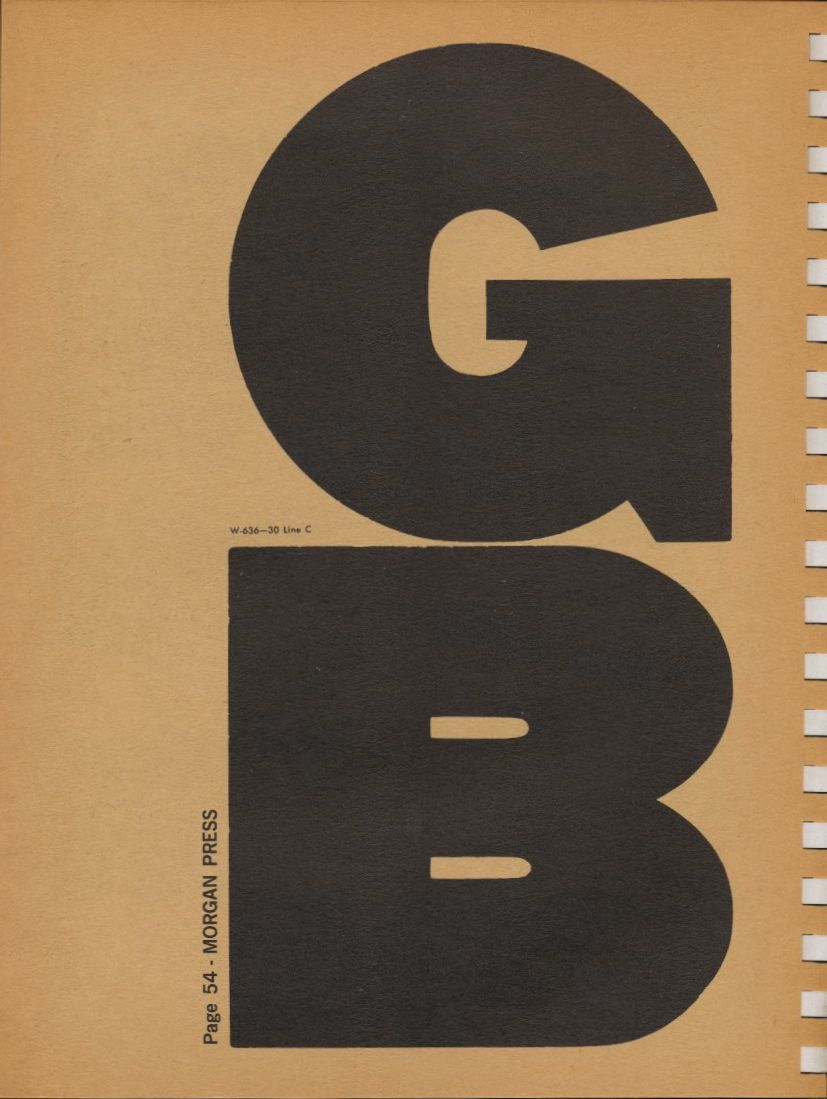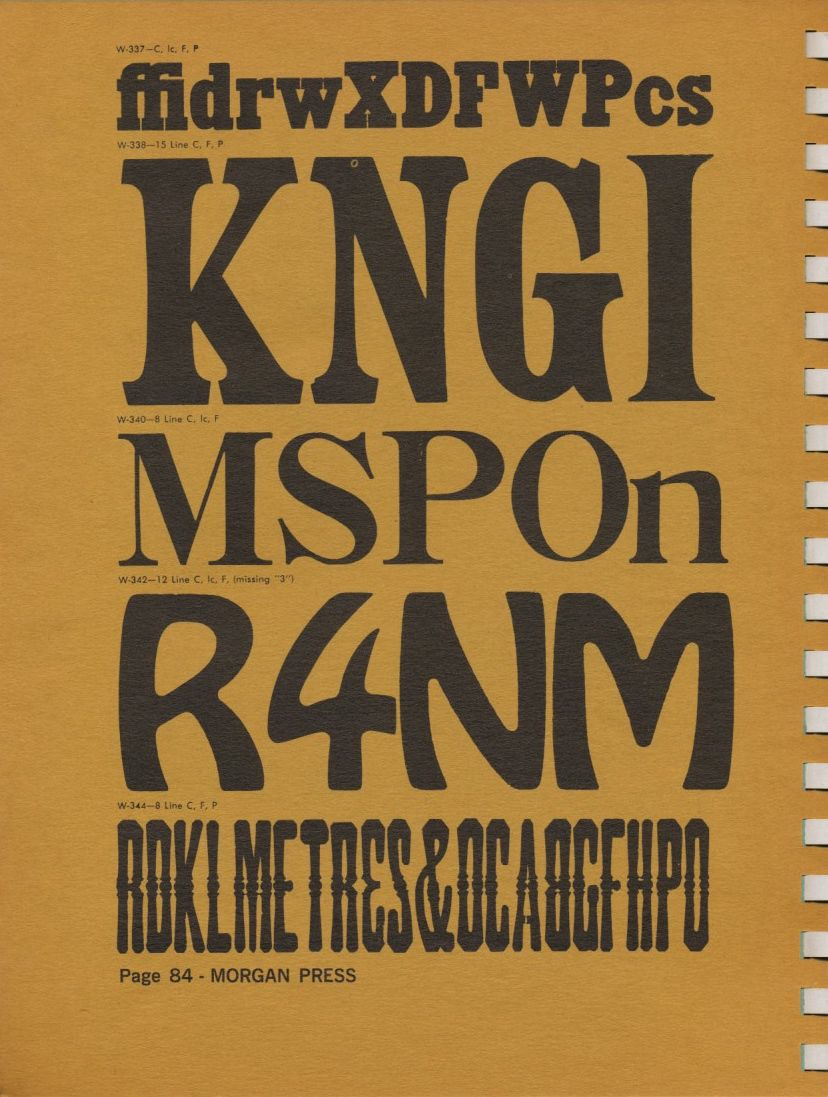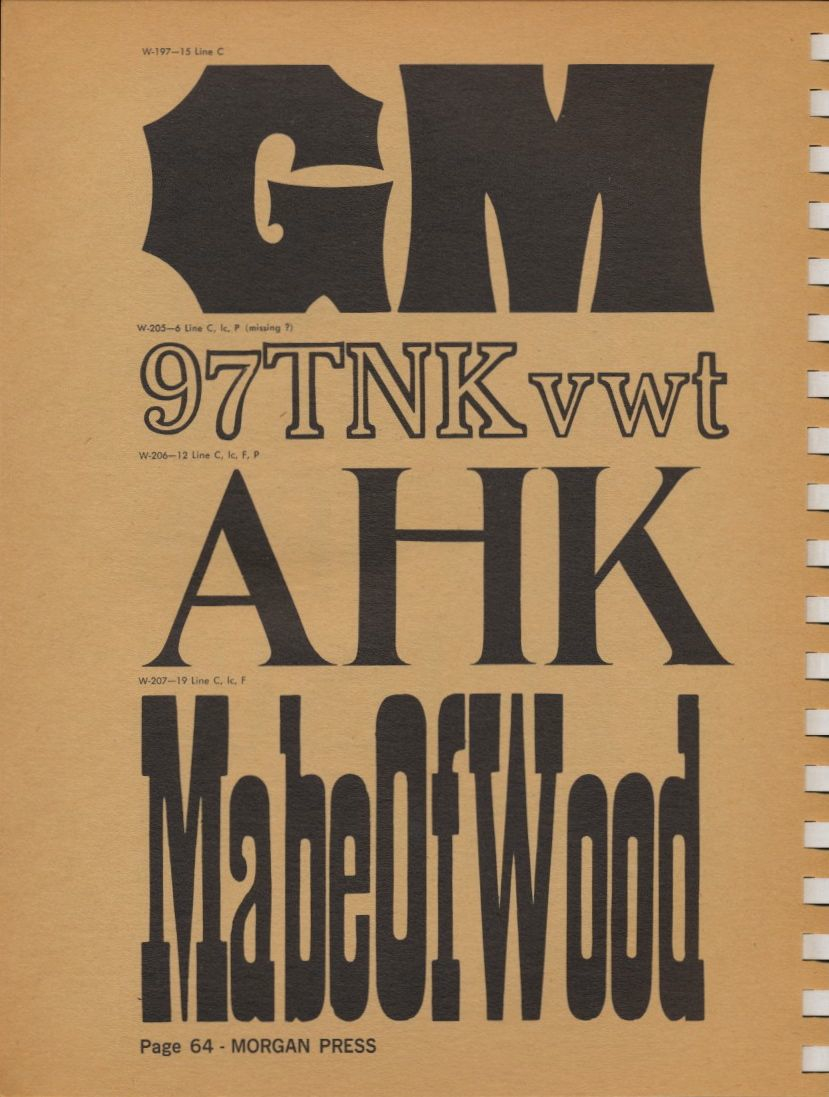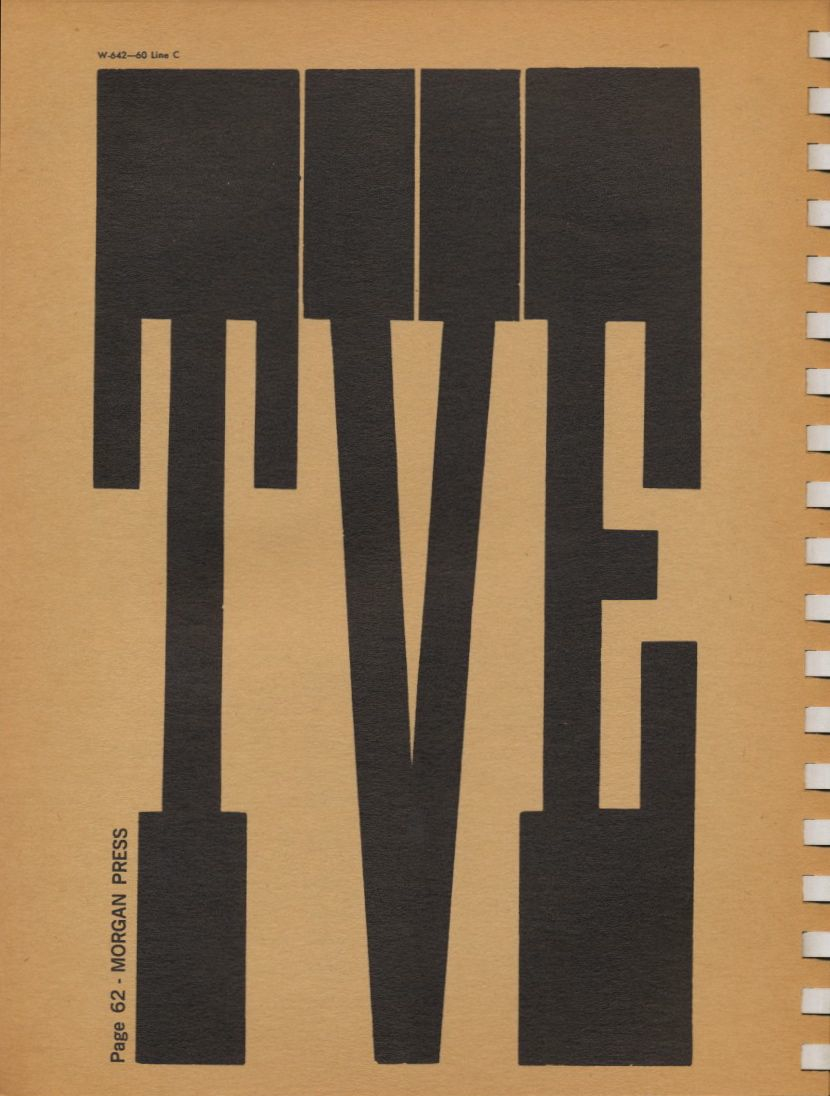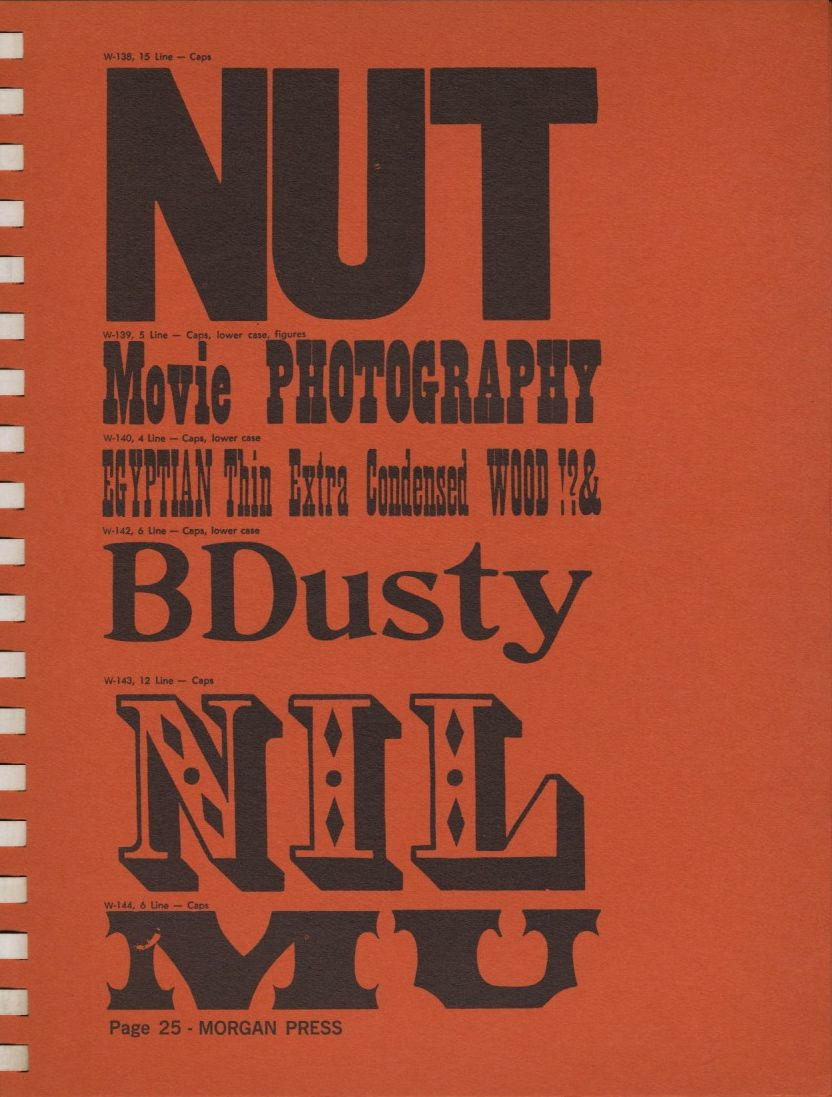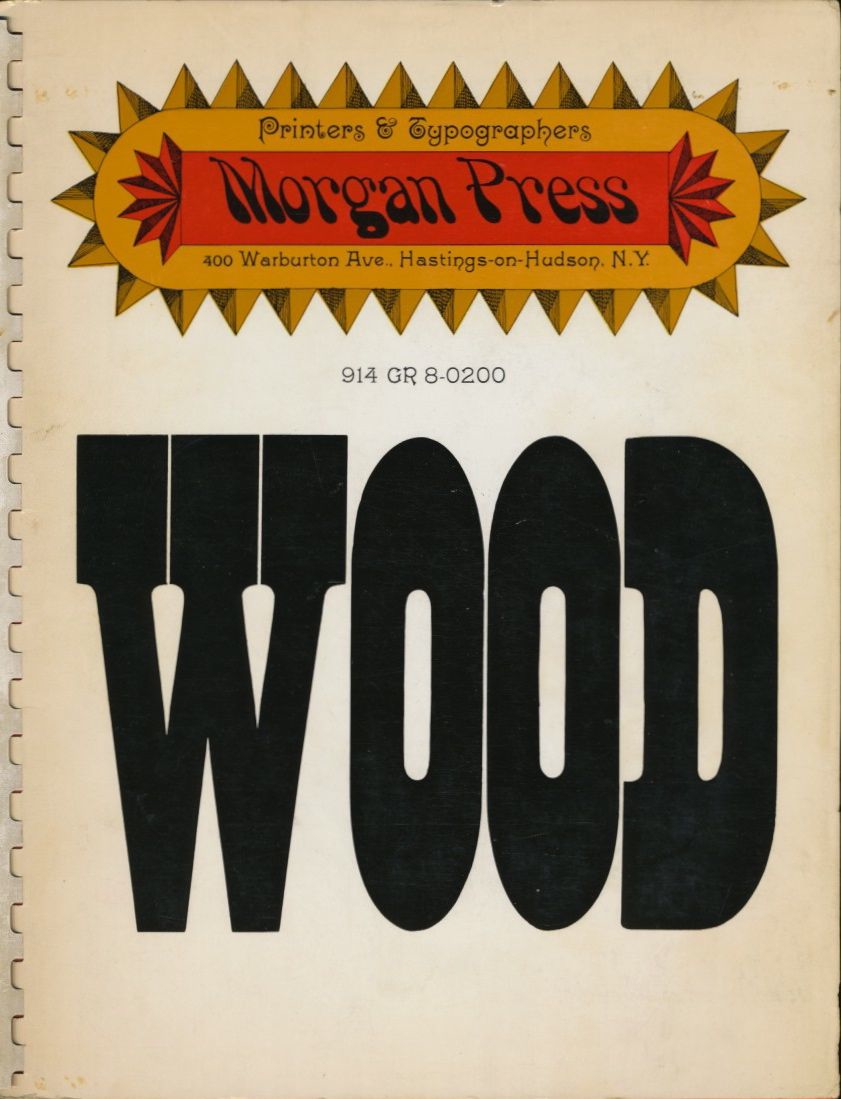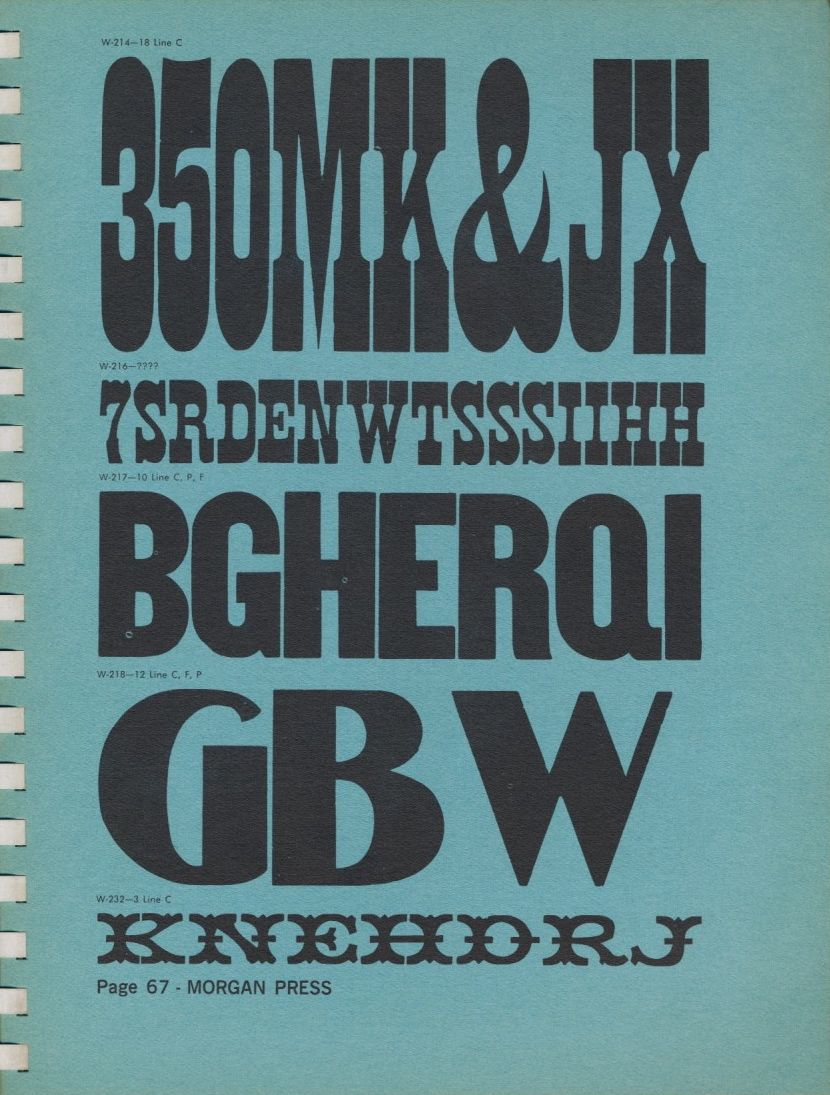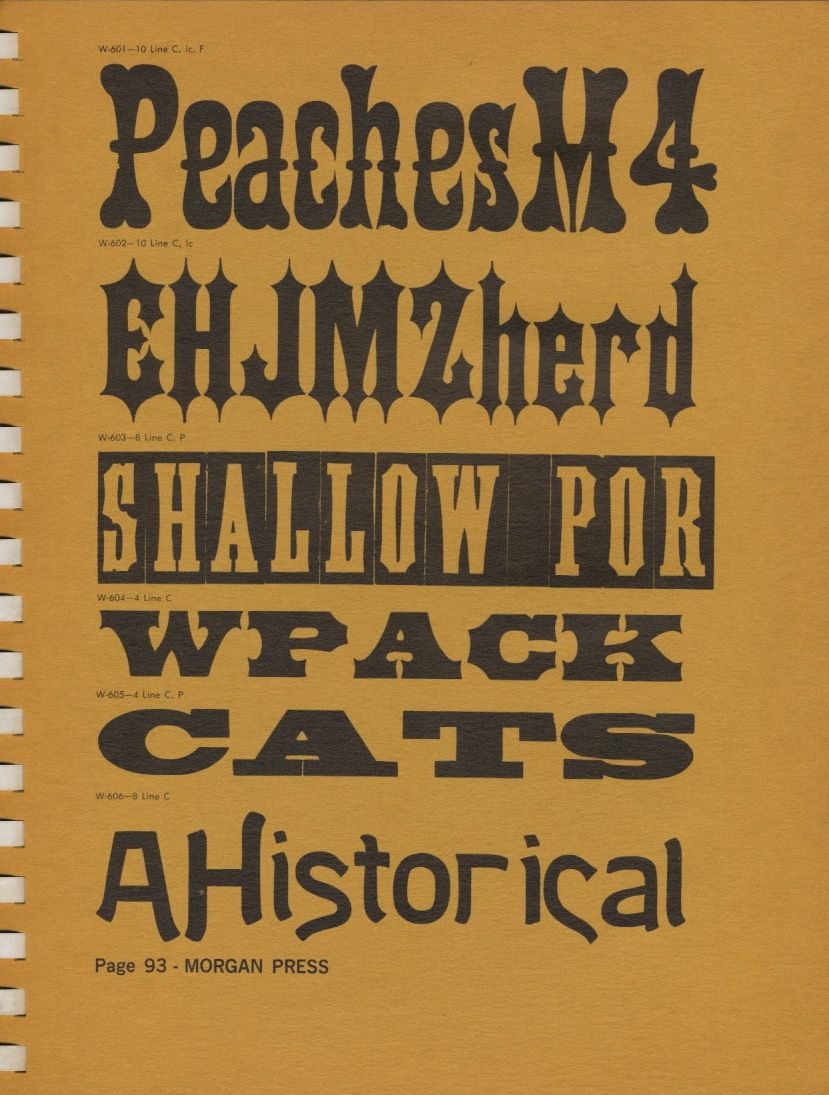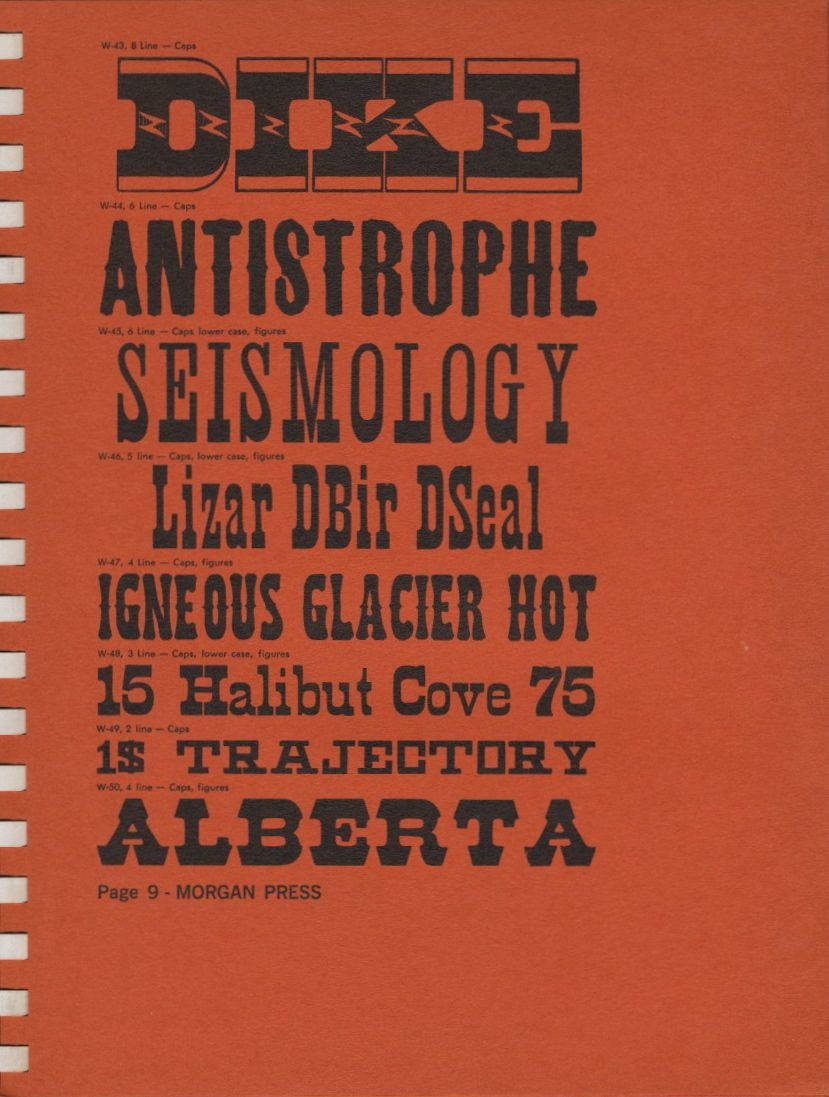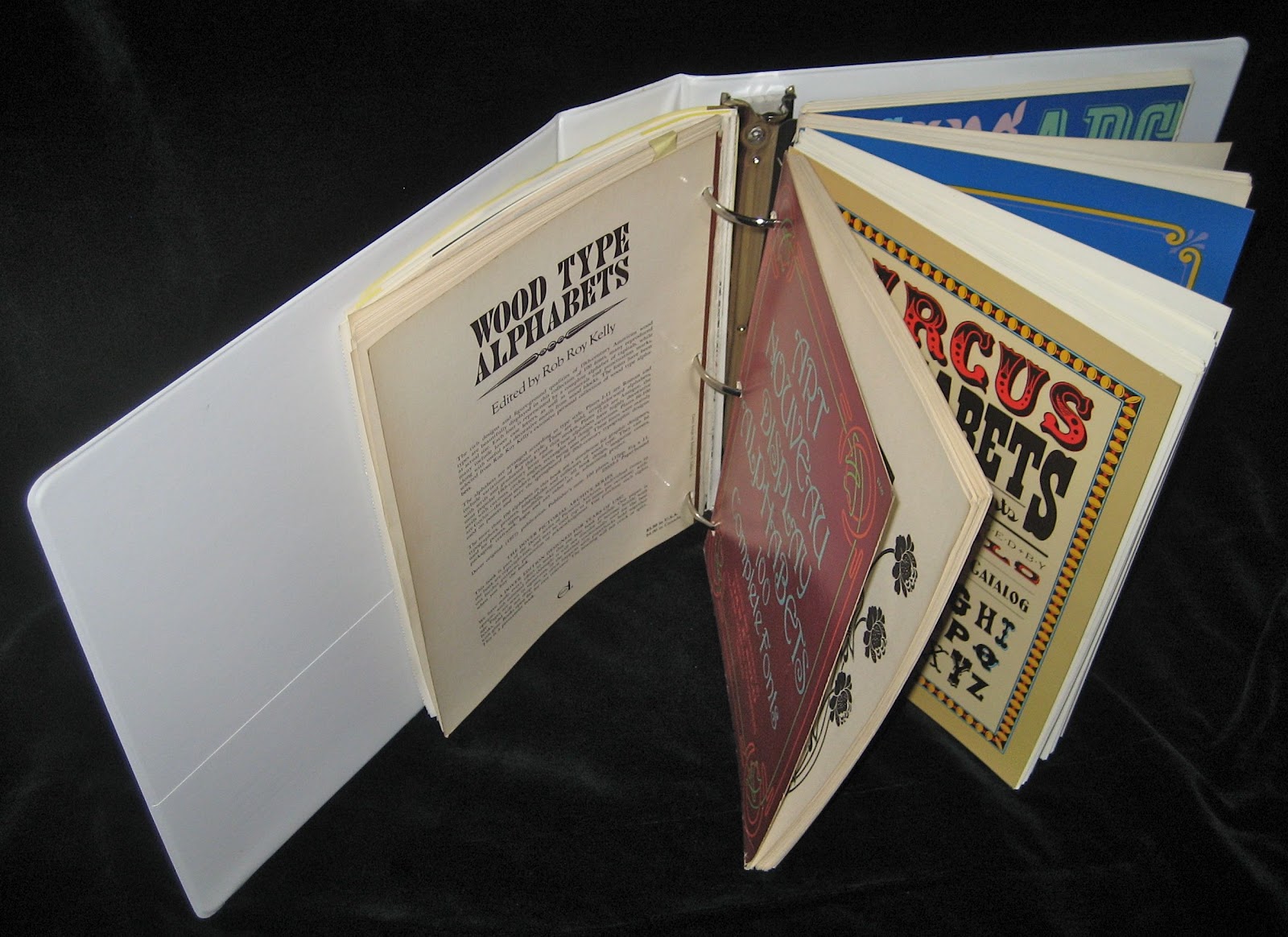
Alphabets: Dan X. Solo
DANIEL “DAN” X. SOLO
April 29, 1928 – May 15, 2012
I have four of Dan X. Solo’s books, Art Nouveau Display Alphabets, Circus Alphabets, Condensed Alphabets, and Victorian Display Alphabets. When I wanted to photostat an alphabet, sometimes it was a chore to make the page level because the book, in some instances, did not lie flat. So, I used an X-acto knife to cut off the book’s spine, then used a three-hole punch on the pages, and put the pages into a binder. I used some of the wood type alphabets, from his books, on one of my Christmas cards.
Under Cover: The Color Wizard
In 1988, Byron Preiss collaborated with Bank Street College to produced a children’s book series, Bank Street Ready-to-Read, to be published by Bantam Little Rooster. The series had three levels: Level 1 (Blue), Getting Ready to Read; Level 2 (Red), Reading Together; and Level 3 (Yellow), I Can Read It Myself. The Color Wizard, one of the first books in the series, was written by Barbara Brenner and illustrated by Leo and Diane Dillon. I was responsible for the design.
I do not have the color comprehensives of the proposed cover designs. So, what I’ve done is to place two of the proposed panel designs over a printed cover. Byron showed the design to Bantam, which gave its tentative approval. A short time later, Byron informed me that Bantam rejected the design. The panel was dropped altogether.
Rejected cover design
For the revised cover design, a designer at Bantam came up with the “bullseye” flanked by “Bank Street” and “Ready-to-Read”; Byron called it “the propeller”. Each level was in a colored capsule, which he called “the hot dog”. The font was ITC Souvenir. The Color Wizard title, based on LetraSet Glastonbury, was hand-lettered, in outline, by the Dillons. The credits were set in the font ITC Korinna.
Front cover design
The first page of the book with art
picked up from the interior art.
Title page with art
from the last story page
First page with text
The Dillons produced a sample spread with hand-lettered text, but the lettering was rejected. Two sample spreads were made with fonts from the ITC Benguiat Gothic and ITC Korinna families.
Photocopy of sample art with hand-lettered text
Photocopy of sample art with ITC Benguiat Gothic text
The art was ink on watercolor paper, but before the colors were added, photostats were made of the line art. Byron planned to produce a coloring book version but it never happened.
Photostat of original line art
Printed original art with ITC Korinna text
One by one, primary colors are added
Secondary and other colors appeared
Rainbow of colors
On the last page, evening at the wizard’s home,
followed by a note by the Dillons
Back cover
The thirty-two page book had twenty-six pages of art. In July 1989, the book was published in paper-over-board and trade paper editions.